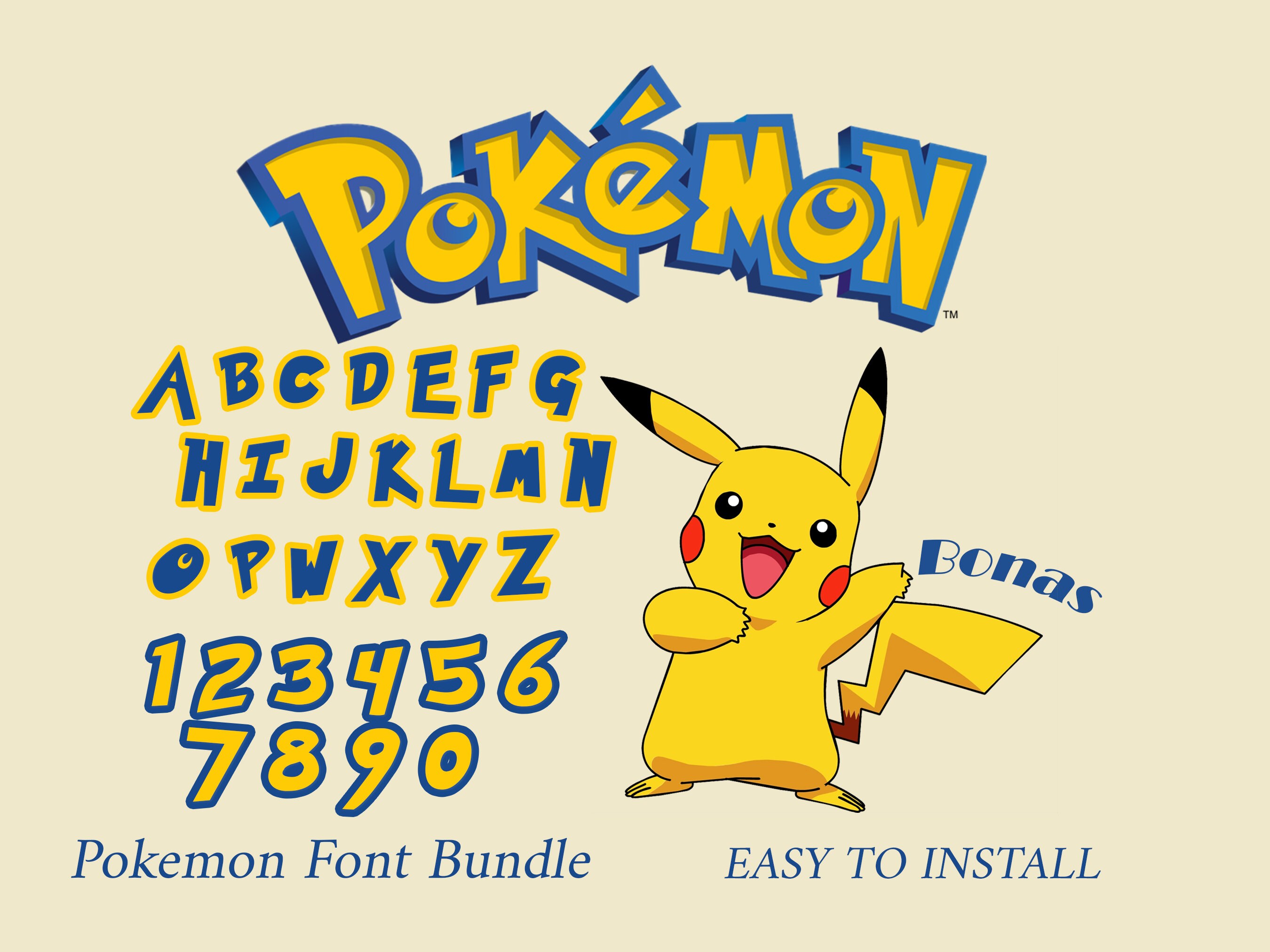
The Pokémon logo was probably custom designed. There is a fan-made font named Pokemon that resembles the logo lettering. The font is available in two styles, Pokemon Solid and Pokemon Hollow.
Download Pokémon Font free. A playful, bold typeface inspired by the iconic Pokémon logo, perfect for fan art, party decorations, and gaming projects. Give your next project some flare with these Pokémon-inspired fonts! Each font pack contains the font file and instructions for installing on your computer and website.
The font used in the Pokémon logo closely resembles the Pokemon Solid font and Pokemon font by FontGet. These custom fonts are designed to mimic the style of the Pokémon logo. Here you can download the Pokemon Font Generator as used in the official logo for this brand.